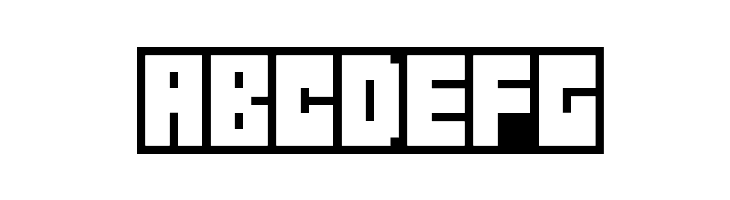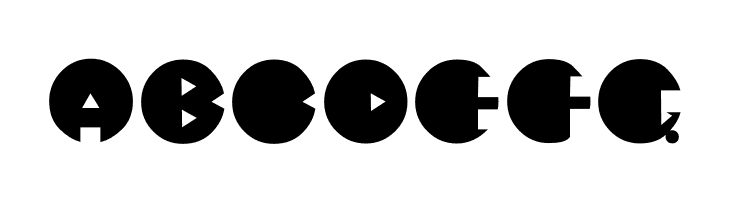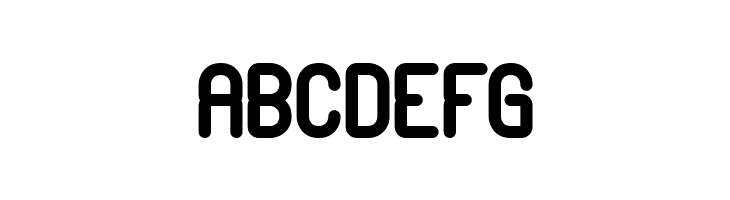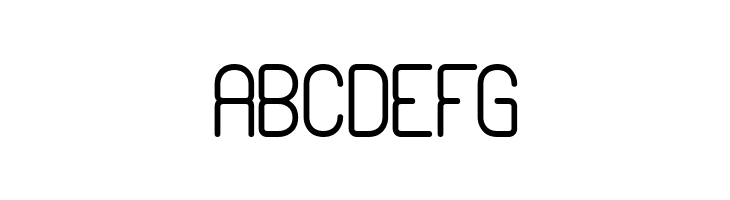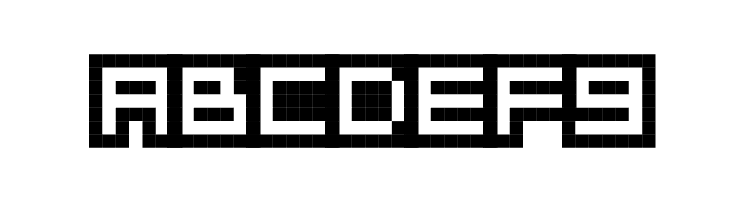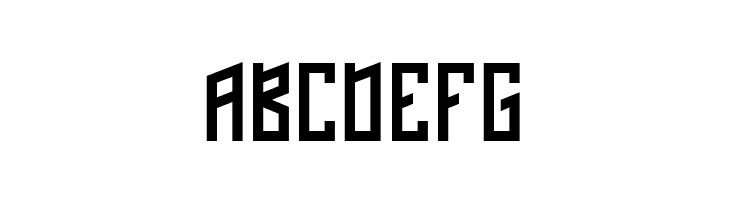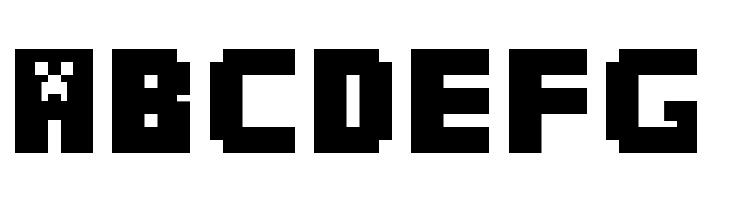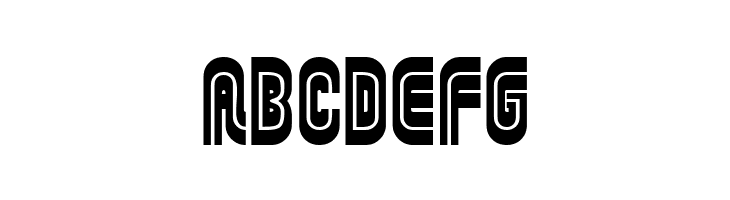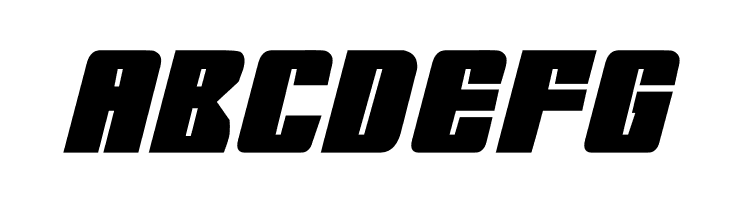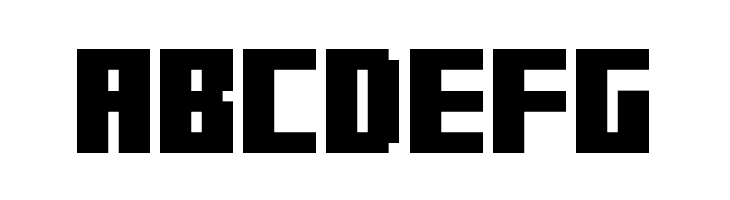
Futuristic Fonts
A bold, geometric font with strong square shapes and uniform borders.
A grid-patterned, geometric font with a modern, digital aesthetic.
A modern, linear font with characters made of horizontal stripes.
A modern, barcode-inspired font with vertical line patterns.
A dot matrix font with a digital, tech-inspired aesthetic.
A bold, geometric font with a futuristic, digital aesthetic.
A modern, geometric font with sharp angles and a futuristic feel.
A bold, angular font with a modern, geometric style.
A futuristic, angular font with a sleek and modern design.
A bold, geometric font with a modern and impactful style.
A bold, futuristic font with angular, geometric shapes and thick strokes.
A bold, geometric font with a modern and dynamic style.
A modern, geometric font with sharp angles and a futuristic style.
A modern, italic font with sharp angles and a dynamic, fluid style.
A modern, geometric font with thin strokes and angular design.
A modern, geometric font with angular and futuristic design elements.
A geometric and futuristic font with angular lines and sharp edges.
A geometric, angular font with a futuristic and edgy design.
A bold, angular, and slanted font with a futuristic feel.
A bold, angular font with a futuristic and geometric style.
A bold, angular font with a futuristic and edgy design.
A bold, 3D italic font with sharp angles and a futuristic style.
A bold, futuristic font with a chrome-like, three-dimensional design.